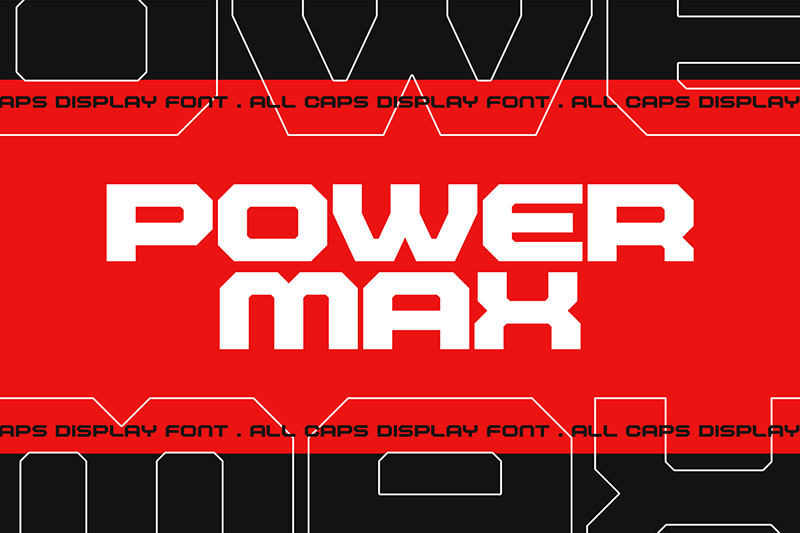
Preview and download Powermax Font. Created by Typologic in Techno Square styles with Free for personal use license.
POWERMAX is free for personal use font made for needs such as logos, posters or main texts that require a loud and powerful feel. SEE MY OTHER FONTS: https://creativemarket.com/typologic Support Me: paypal.me/typologic23 Thanks and Good Luck. |